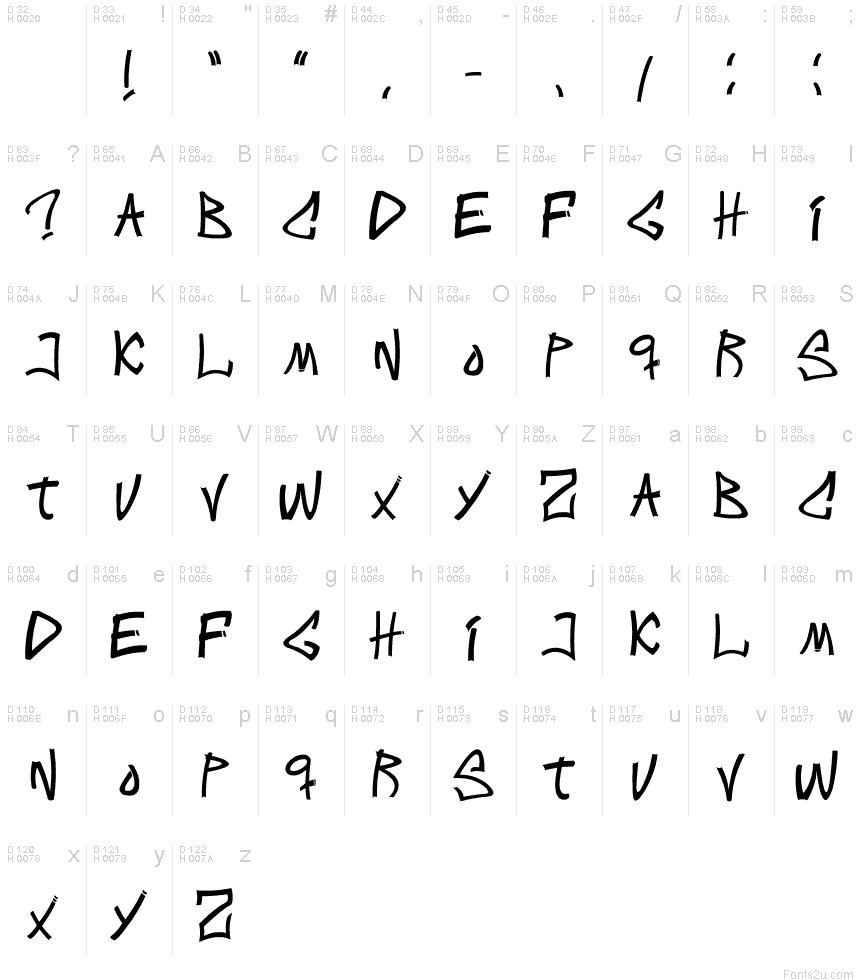
Intens writings
Intens Writings font by Typeface is a free graffiti typeface with the raw, marker-scrawled energy of a wall tagged at night. Tall, narrow letters stack and overlap like quick handstyle strokes, with uneven pressure and slightly shaky lines that feel genuinely inky and improvised instead of polished. The rhythm is fast and vertical, giving your text a restless, urban pulse that jumps off the screen or page.
Using Intens Writings, you can push attitude to the forefront for album covers, streetwear branding, event flyers, skateboard graphics, zines, or bold social media titles. This free font works best at larger sizes where its rough edges and layered forms can breathe; pair it with a clean geometric sans for body text to keep your layouts readable while the graffiti lettering grabs all the attention.